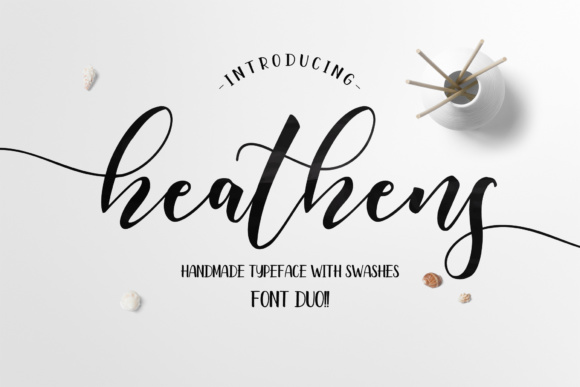
Heathens Script Font: A Fresh and Modern Calligraphy-Style Font
The world of typography has witnessed a significant transformation over the years, with the emergence of various font styles that cater to diverse design needs. One such font that has gained popularity among designers and typography enthusiasts is the Heathens Script Font. In this article, we will explore the features, benefits, and applications of the Heathens Script Font, and understand why it has become a go-to choice for many design projects.
What is Heathens Script Font?
Heathens is a fresh, modern calligraphy-style font that features decorative characters and a dancing baseline, making the texts flow effortlessly on the screen. The font is designed to add a touch of elegance and sophistication to any design project, be it a logo, website, or print material. With its unique blend of classic calligraphy and modern flair, Heathens Script Font has become a popular choice among designers seeking to create visually appealing and engaging content.
Key Features of Heathens Script Font
- Decorative Characters: Heathens Script Font features decorative characters that add a touch of elegance and sophistication to any design project.
- Dancing Baseline: The font has a dancing baseline, which gives the text a flowing and dynamic feel.
- Modern Calligraphy Style: Heathens Script Font is designed in a modern calligraphy style, making it perfect for projects that require a fresh and contemporary look.
- Highly Legible: Despite its decorative nature, Heathens Script Font is highly legible, making it suitable for use in a variety of design projects.
Benefits of Using Heathens Script Font
The Heathens Script Font offers several benefits to designers and typography enthusiasts. Some of the key benefits include:
- Unique and Eye-Catching: Heathens Script Font is a unique and eye-catching font that can help designers create visually appealing and engaging content.
- Versatile: The font is highly versatile and can be used in a variety of design projects, from logos and websites to print materials and more.
- Easy to Read: Despite its decorative nature, Heathens Script Font is easy to read, making it suitable for use in body text and other applications where legibility is important.
- Customizable: The font is highly customizable, allowing designers to adjust the size, color, and style to suit their design needs.
Applications of Heathens Script Font
Heathens Script Font has a wide range of applications in various design projects. Some of the most popular uses of the font include:
- Logo Design: Heathens Script Font is often used in logo design to create a unique and memorable brand identity.
- Web Design: The font is used in web design to create visually appealing and engaging content that captures the attention of website visitors.
- Print Materials: Heathens Script Font is used in print materials such as brochures, flyers, and posters to add a touch of elegance and sophistication.
- Social Media Graphics: The font is used in social media graphics to create visually appealing and engaging content that resonates with social media followers.
Tips for Using Heathens Script Font
To get the most out of Heathens Script Font, here are some tips to keep in mind:
- Use it Sparingly: Heathens Script Font is a decorative font, and as such, it should be used sparingly to avoid overwhelming the design.
- Pair it with a Simple Font: Pair Heathens Script Font with a simple font to create contrast and make the design more visually appealing.
- Adjust the Size and Color: Adjust the size and color of the font to suit the design needs and create a cohesive look.
- Experiment with Different Styles: Experiment with different styles and effects to create a unique and eye-catching design.
In conclusion, Heathens Script Font is a fresh and modern calligraphy-style font that features decorative characters and a dancing baseline, making it perfect for a variety of design projects. With its unique blend of classic calligraphy and modern flair, Heathens Script Font has become a popular choice among designers seeking to create visually appealing and engaging content. By following the tips outlined in this article, designers can get the most out of Heathens Script Font and create stunning designs that capture the attention of their audience.